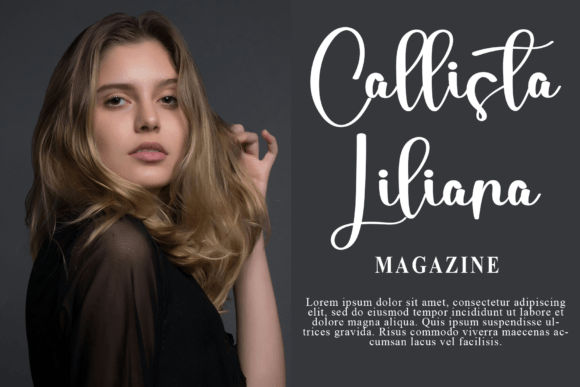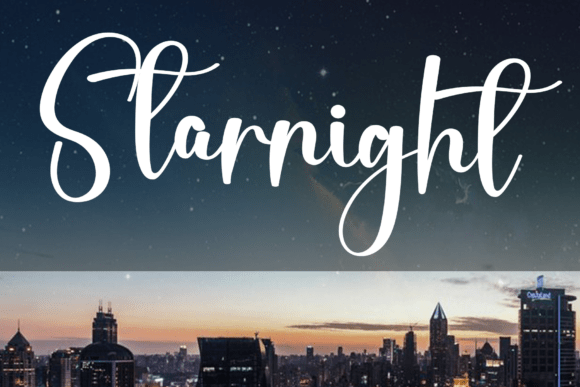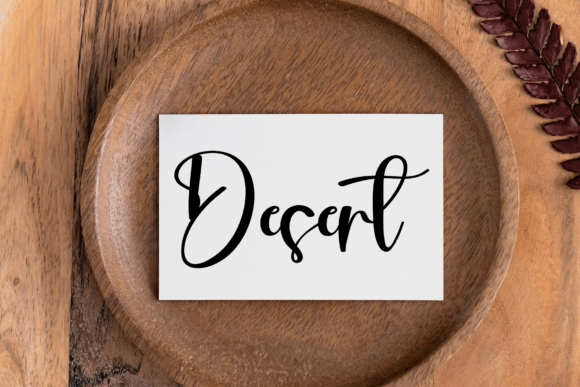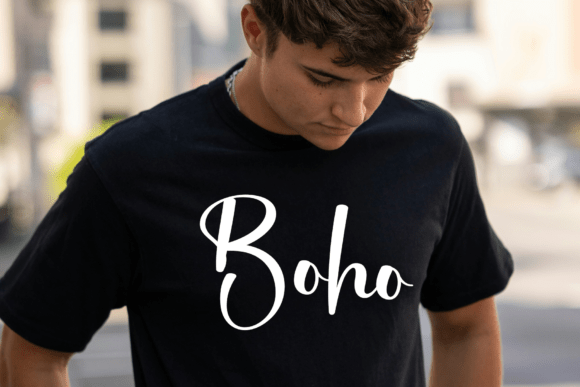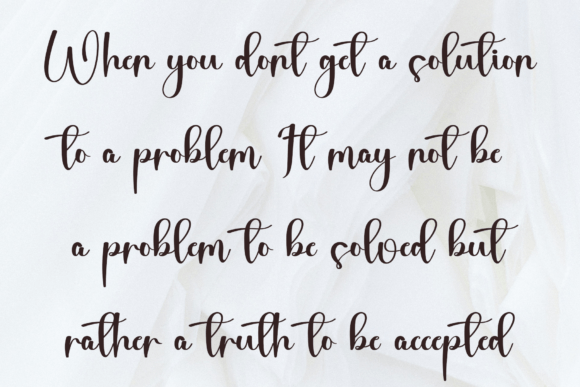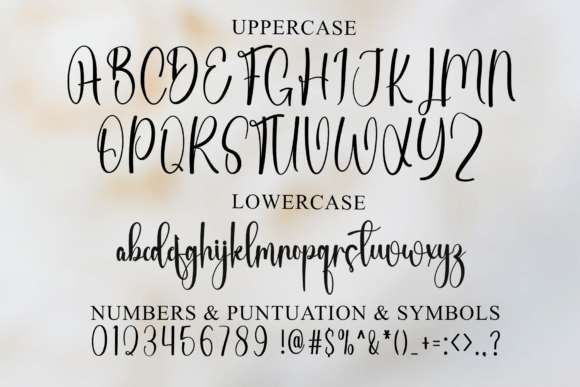
Discover the Charm of American Handmade Font: A Timeless Script for Classic Craftsmanship
In the world of typography, few fonts capture the essence of classic craftsmanship as beautifully as American Handmade. This stunning script font is designed to infuse your designs with a warm, artisanal soul, reminiscent of a bygone era. With its tall, slightly condensed cursive anatomy and smooth, confidently penned medium-weight strokes, American Handmade is the perfect choice for designers and crafters looking to add a touch of timeless elegance to their work.
The Spirit of Classic Craftsmanship
American Handmade is more than just a font – it’s a celebration of traditional craftsmanship and the art of handmade typography. Its unique design elements evoke a sense of nostalgia and authenticity, making it an ideal choice for heritage branding, rustic product packaging, custom woodworking logos, artisanal food labels, and vintage editorial headers.
Whether you’re a designer looking to create a vintage-inspired brand identity or a crafter seeking to add a personal touch to your products, American Handmade is the perfect tool for the job. Its versatility and timeless style ensure that your designs will stand the test of time, exuding a sense of professionalism and approachability that resonates with audiences of all ages.
Key Features of American Handmade Font
So, what sets American Handmade apart from other script fonts? Here are just a few of its key features:
- Tall, slightly condensed cursive anatomy: American Handmade’s elegant, flowing script is perfect for creating beautiful, eye-catching headlines and titles.
- Smooth, confidently penned medium-weight strokes: The font’s smooth strokes give it a sense of fluidity and movement, while its medium weight ensures that your text remains clear and legible.
- Timeless, artisanal style: American Handmade’s classic design elements evoke a sense of nostalgia and authenticity, making it perfect for crafters and designers looking to create a vintage-inspired aesthetic.
Use Cases for American Handmade Font
American Handmade is an incredibly versatile font, suitable for a wide range of design applications. Here are just a few ideas to get you started:
- Heritage branding: Use American Handmade to create a vintage-inspired brand identity that evokes a sense of tradition and heritage.
- Rustic product packaging: Add a touch of rustic charm to your product packaging with American Handmade’s elegant, artisanal script.
- Custom woodworking logos: Create a beautiful, handmade logo for your custom woodworking business with American Handmade’s unique and timeless design.
- Artisanal food labels: Use American Handmade to create eye-catching labels for your artisanal food products, adding a touch of warmth and personality to your brand.
- Vintage editorial headers: Add a touch of classic elegance to your editorial designs with American Handmade’s beautiful, flowing script.
American Handmade is a truly exceptional script font that captures the essence of classic craftsmanship and timeless style. With its elegant, artisanal design and versatile use cases, it’s the perfect choice for designers and crafters looking to add a touch of warmth and personality to their work. Whether you’re creating a vintage-inspired brand identity, rustic product packaging, or simply looking for a beautiful font to add to your collection, American Handmade is sure to impress.